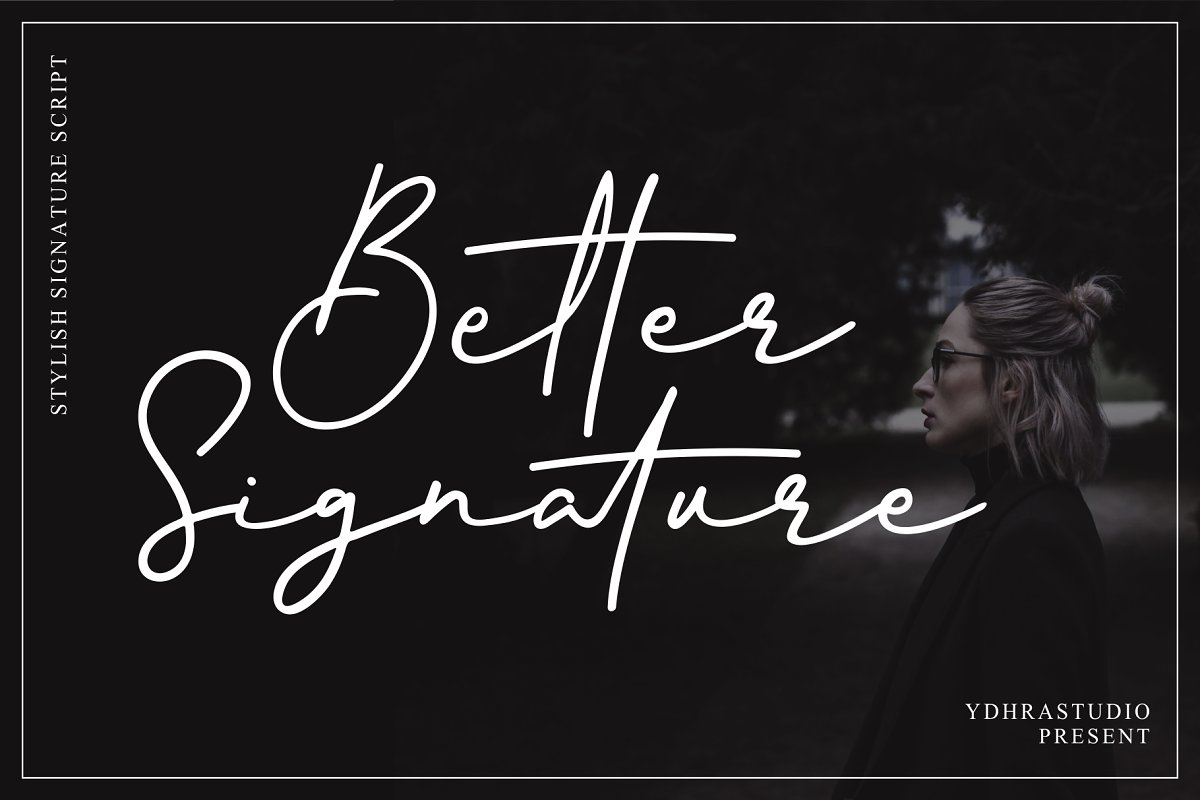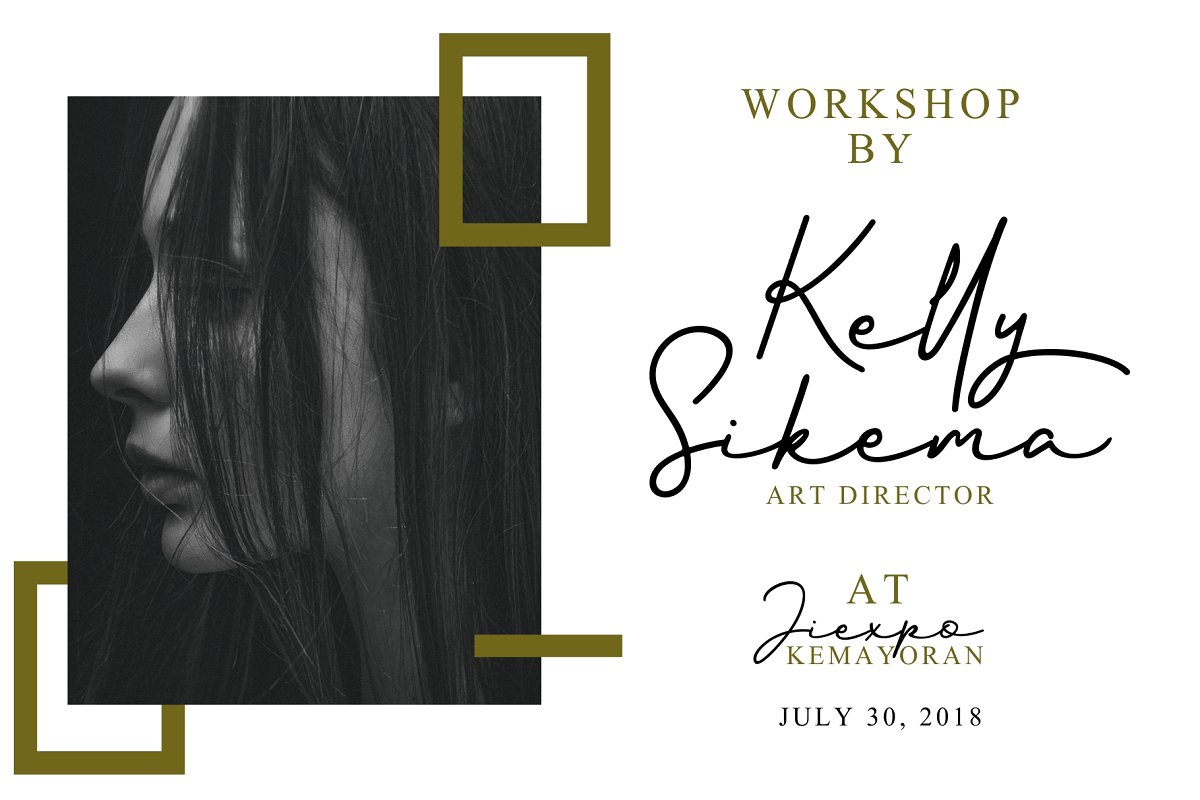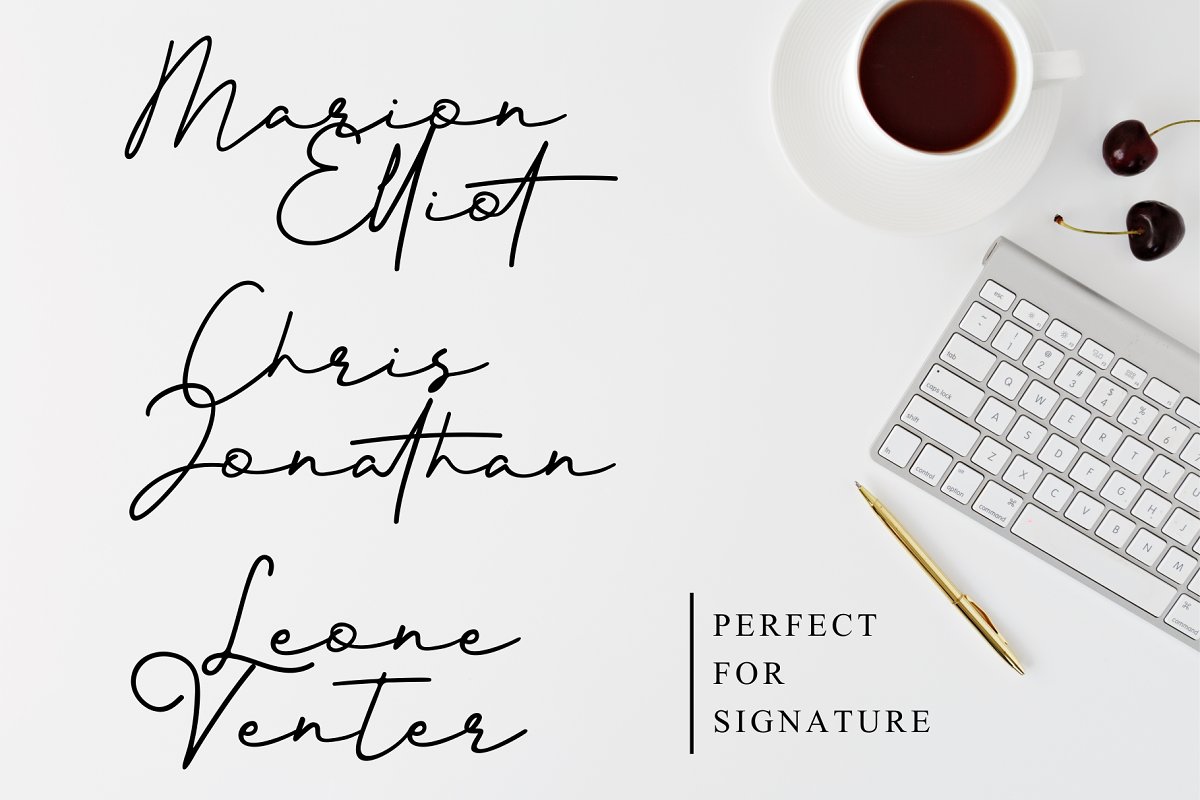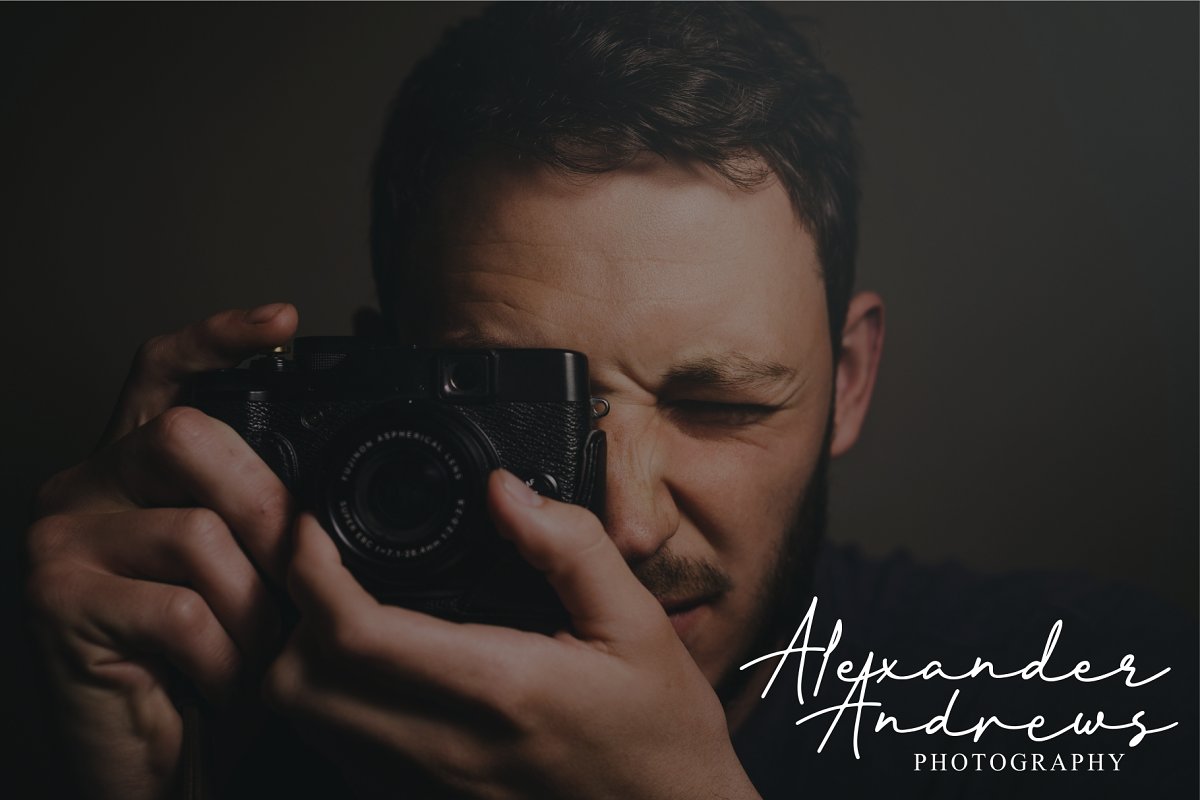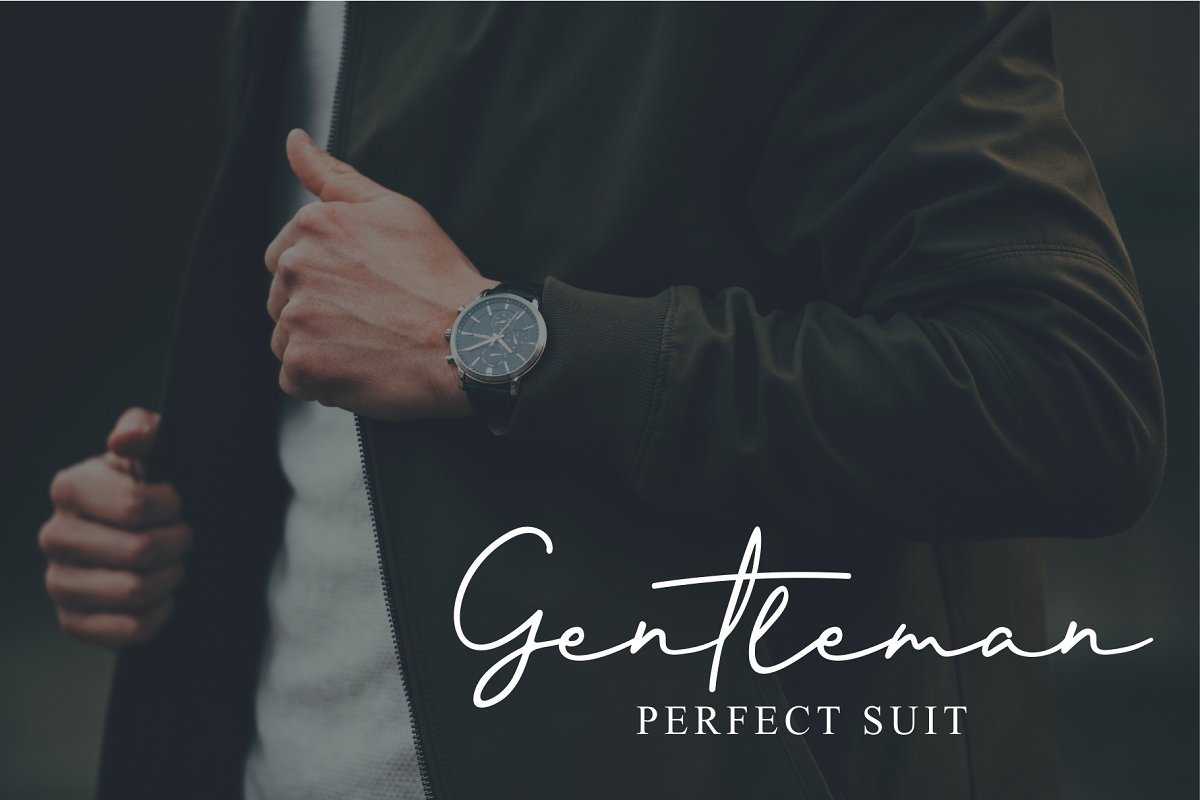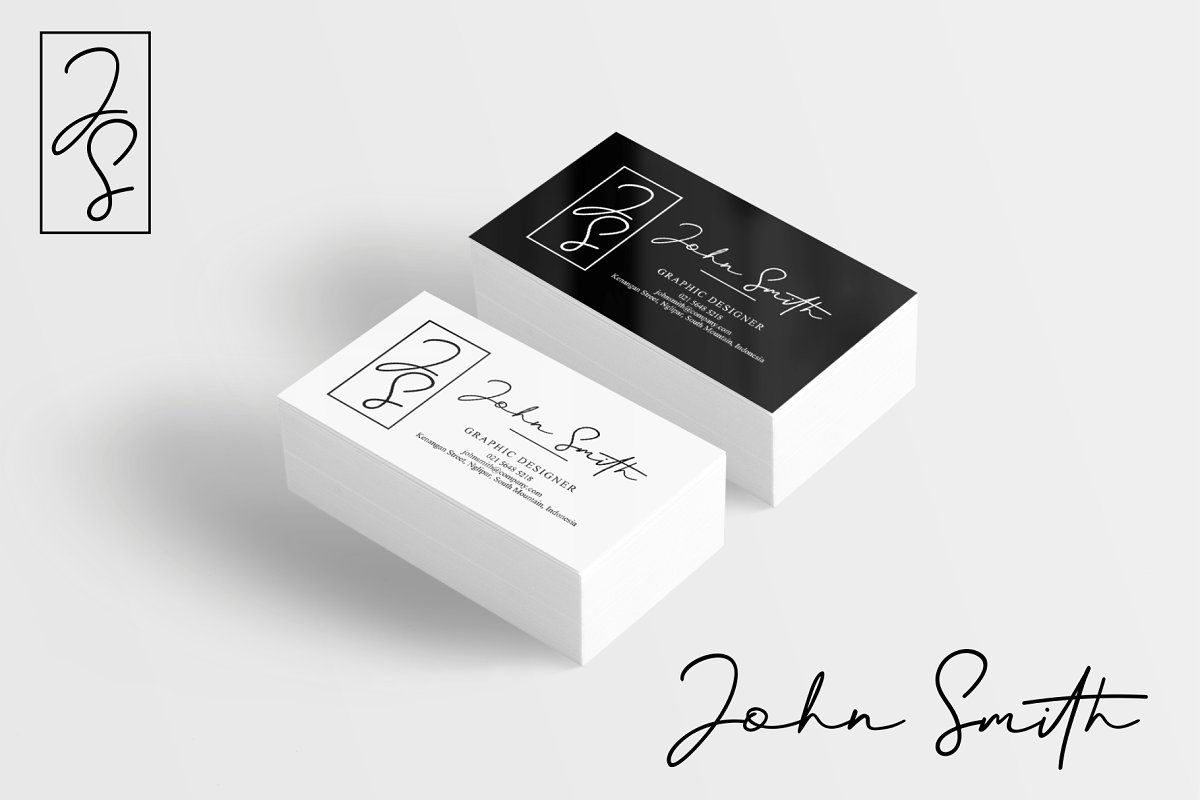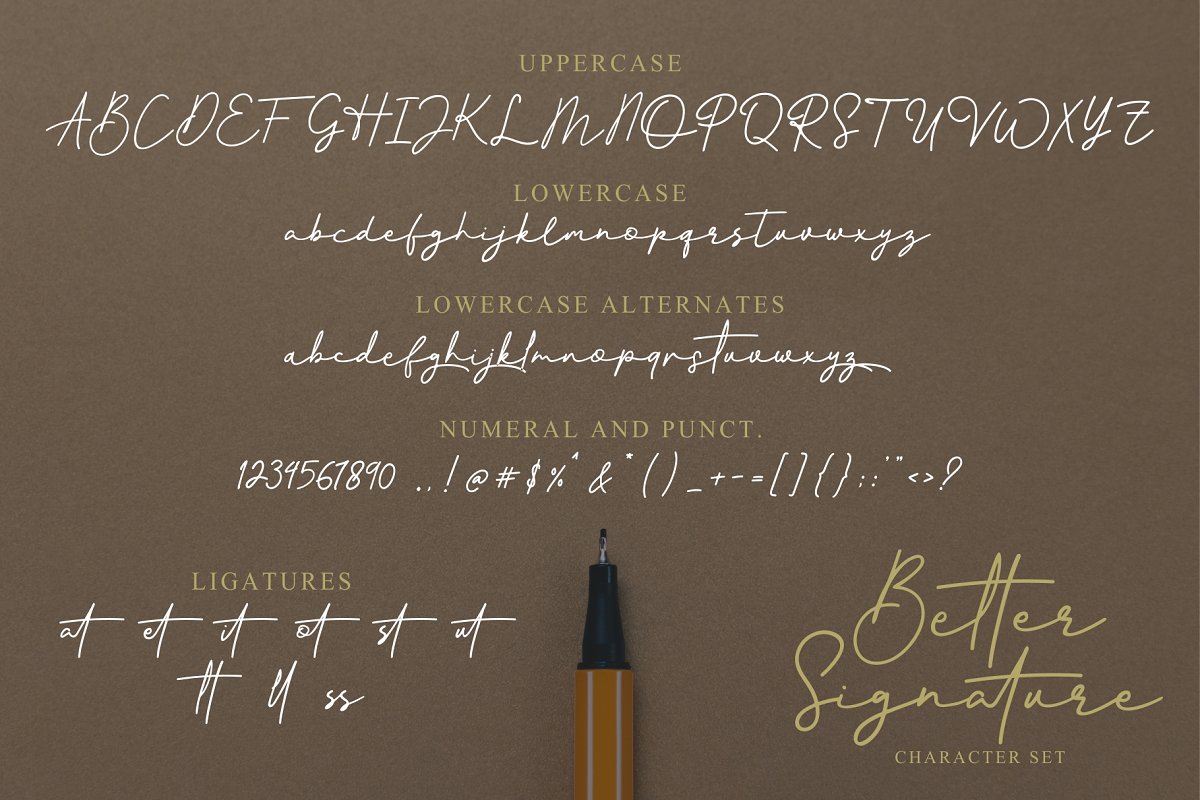
About the Better Signature Font
SALE! Check my best seller font (Eusthalia Typeface) : https://creativemarket, com/YdhraStudio/2751733-SALE%21-Eusthalia-TypefaceHello good people!We introduce our new product called Better Signature, Better Signature is a signature font that you can use to make a design for logo branding, poster headline, magazines, book titles, business cards, beautiful fashion designs, advertisements, product designs, wedding invitation, signature or handwritten quote
Better Signature Features :Upper and Lowercase Standard Characters, Punctuation, Numerals, Lowercase Alternates, Ligatures, PUA Encoded Characters – Fully accessible without additional design software, Includes a range of multilingual characters, You can access all those alternate characters by using a program that supports OpenType features such as Adobe Illustrator CS, Adobe Indesign & CorelDraw X6-X7